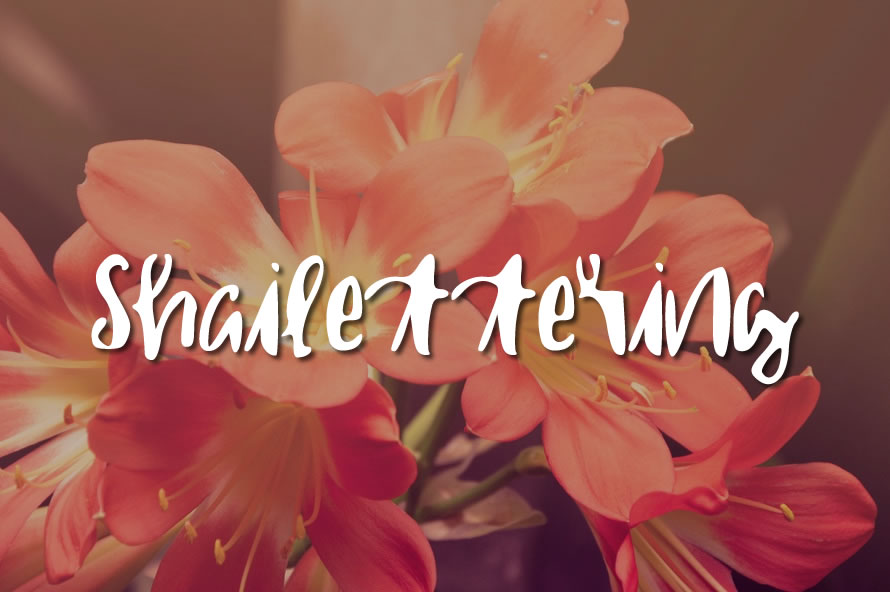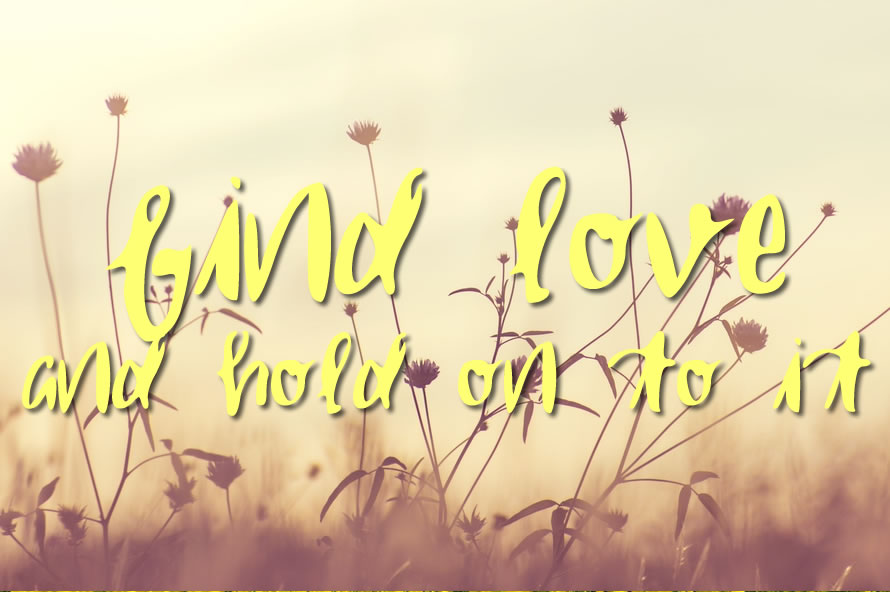
About Shailettering Font
Shailettering is a beautiful hand drawn font by Shailynn Hodgins.
The Shailettering font is a great font for signs and projects that require a personal touch. The font works best with larger texts and works great for both digital and print.